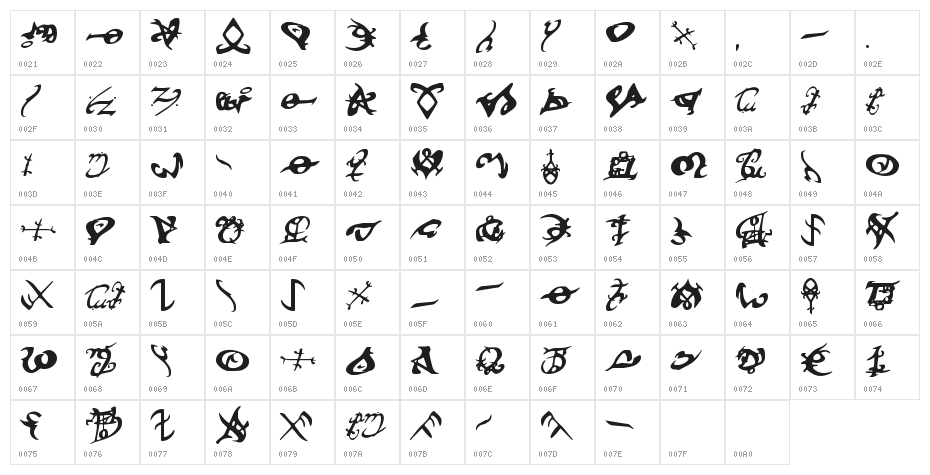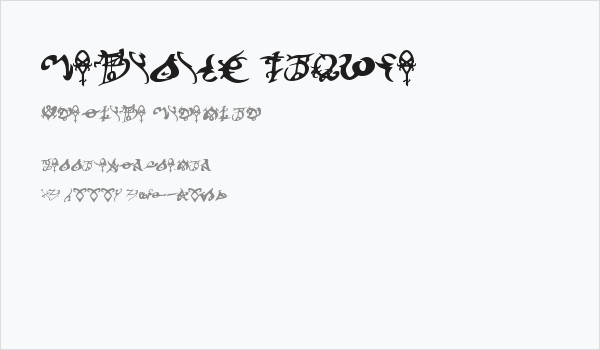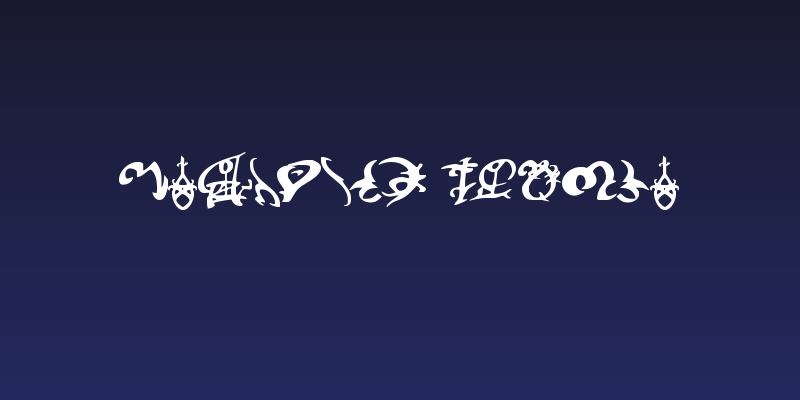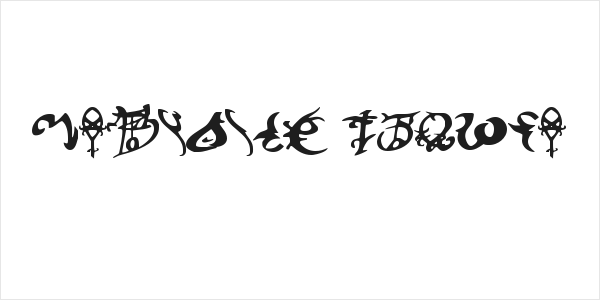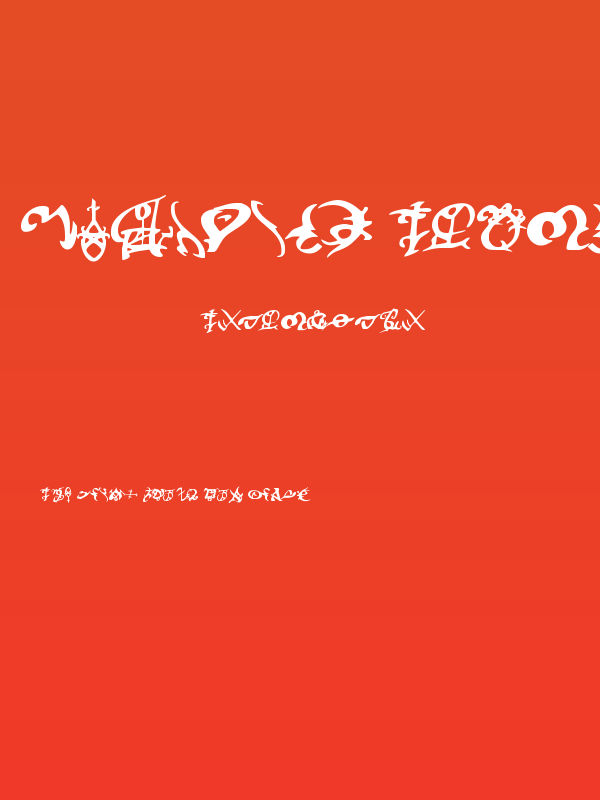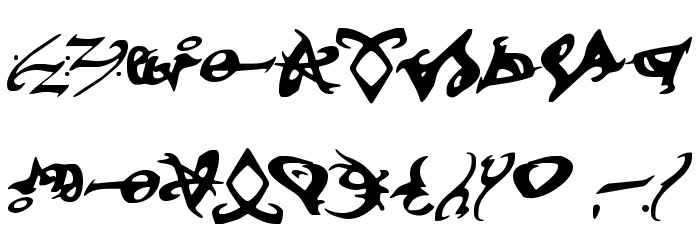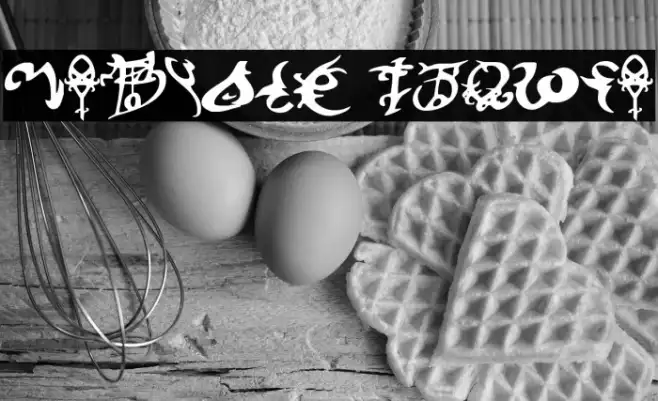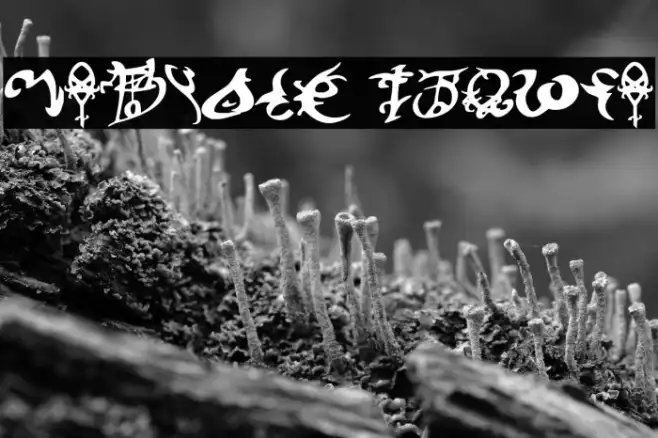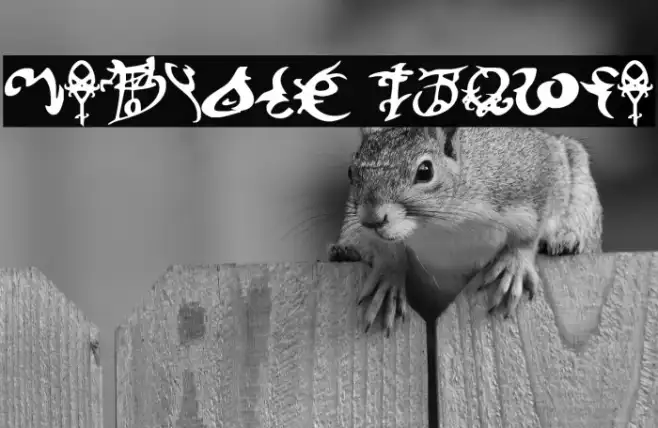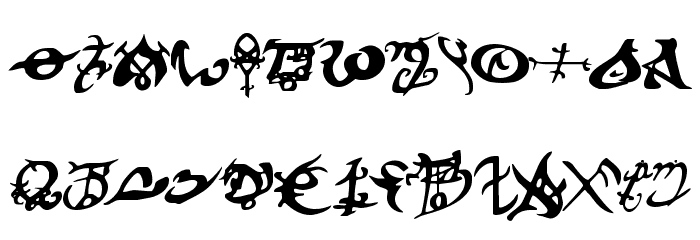
Devil's Tongue Font
Devil's Tongue Description
This font features an intricate and highly decorative style, characterized by its elaborate and ornate letterforms. Each character is uniquely crafted with complex curves, sharp angles, and a variety of embellishments that give it a mystical and otherworldly appearance. The font's design includes a mix of thick and thin strokes, creating a dynamic contrast that enhances its visual impact. The overall aesthetic is reminiscent of ancient scripts or magical symbols, making it ideal for projects that require a touch of fantasy or mystery. The spacing between characters is relatively tight, contributing to its dense and compact look.
| Overall Style | Mystical, Ornate, Decorative |
| Use Case | Logos, Headlines, Themed Designs |
| Proposed Projects | Ideal for fantasy book covers, mystical event invitations, or themed graphic design projects. |